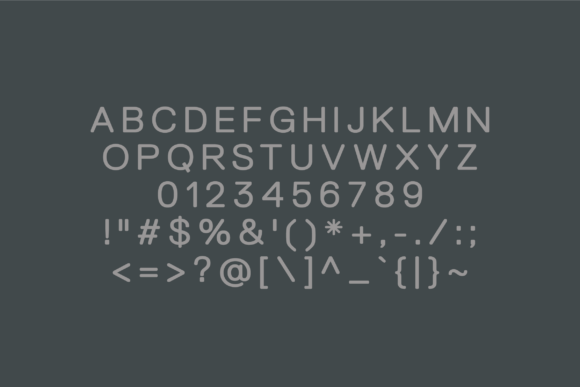
Introducing Evanderis Font: A Modern, Classy Sans Serif Typeface
In the world of typography, a new font has emerged that is taking the design community by storm. Meet Evanderis, a modern, classy sans serif typeface that is perfect for a wide range of design applications. In this article, we’ll take a closer look at Evanderis and explore its features, versatility, and uses.
What is Evanderis Font?
Evanderis is a sans serif typeface that is designed to be clean, elegant, and highly legible. It features upper characters, numbers 0-9, and a range of punctuation and symbols, making it an extremely versatile font. The font is perfect for designers who want to create modern, sophisticated designs that convey a sense of professionalism and style.
Key Features of Evanderis Font
So, what makes Evanderis stand out from other sans serif typefaces? Here are some of its key features:
- Clean and Elegant Design: Evanderis has a clean and elegant design that makes it perfect for a wide range of design applications.
- Upper Characters: The font features upper characters, making it perfect for titles, headings, and emphasis.
- Numbers and Punctuation: Evanderis includes numbers 0-9 and a range of punctuation and symbols, making it a versatile font for body text and captions.
- Highly Legible: The font is designed to be highly legible, even at small sizes, making it perfect for body text and captions.
Uses of Evanderis Font
Evanderis is an extremely versatile font that can be used for a wide range of design applications. Here are some of the ways you can use Evanderis:
- Logos: Evanderis is perfect for creating modern, sophisticated logos that convey a sense of professionalism and style.
- Weddings and Invitations: The font is ideal for wedding invitations, save-the-date cards, and other formal events.
- Quotes and Advertisements: Evanderis is perfect for creating eye-catching quotes and advertisements that grab attention.
- Print and Magazines: The font is suitable for print and digital magazines, newspapers, and other publications.
Benefits of Using Evanderis Font
So, why should you choose Evanderis for your design projects? Here are some of the benefits of using Evanderis:
- Modern and Sophisticated: Evanderis gives your designs a modern and sophisticated look that is sure to impress.
- Highly Versatile: The font is extremely versatile and can be used for a wide range of design applications.
- Easily Legible: Evanderis is highly legible, even at small sizes, making it perfect for body text and captions.
- Professional and Clean: The font has a professional and clean design that is perfect for creating designs that convey a sense of style and sophistication.
Tips and Tricks for Using Evanderis Font
Here are some tips and tricks for getting the most out of Evanderis:
- Experiment with Font Sizes: Experiment with different font sizes to find the perfect size for your design.
- Use Contrast: Use contrast to make your text stand out. Try pairing Evanderis with a bold or italic font for added emphasis.
- Play with Color: Play with color to add visual interest to your design. Evanderis looks great in a range of colors and can be used to create stunning color schemes.
In conclusion, Evanderis is a modern, classy sans serif typeface that is perfect for a wide range of design applications. Its clean and elegant design, highly legible, and versatility make it a great choice for designers who want to create modern, sophisticated designs. With its wide range of uses, from logos to weddings and invitations, Evanderis is a font that every designer should have in their toolkit.
- What is Evanderis font?
- Evanderis is a modern, classy sans serif typeface that features upper characters, numbers 0-9, and a range of punctuation and symbols.
- What is Evanderis font used for?
- Evanderis can be used for a wide range of design applications, including logos, weddings and invitations, quotes and advertisements, print and magazines.